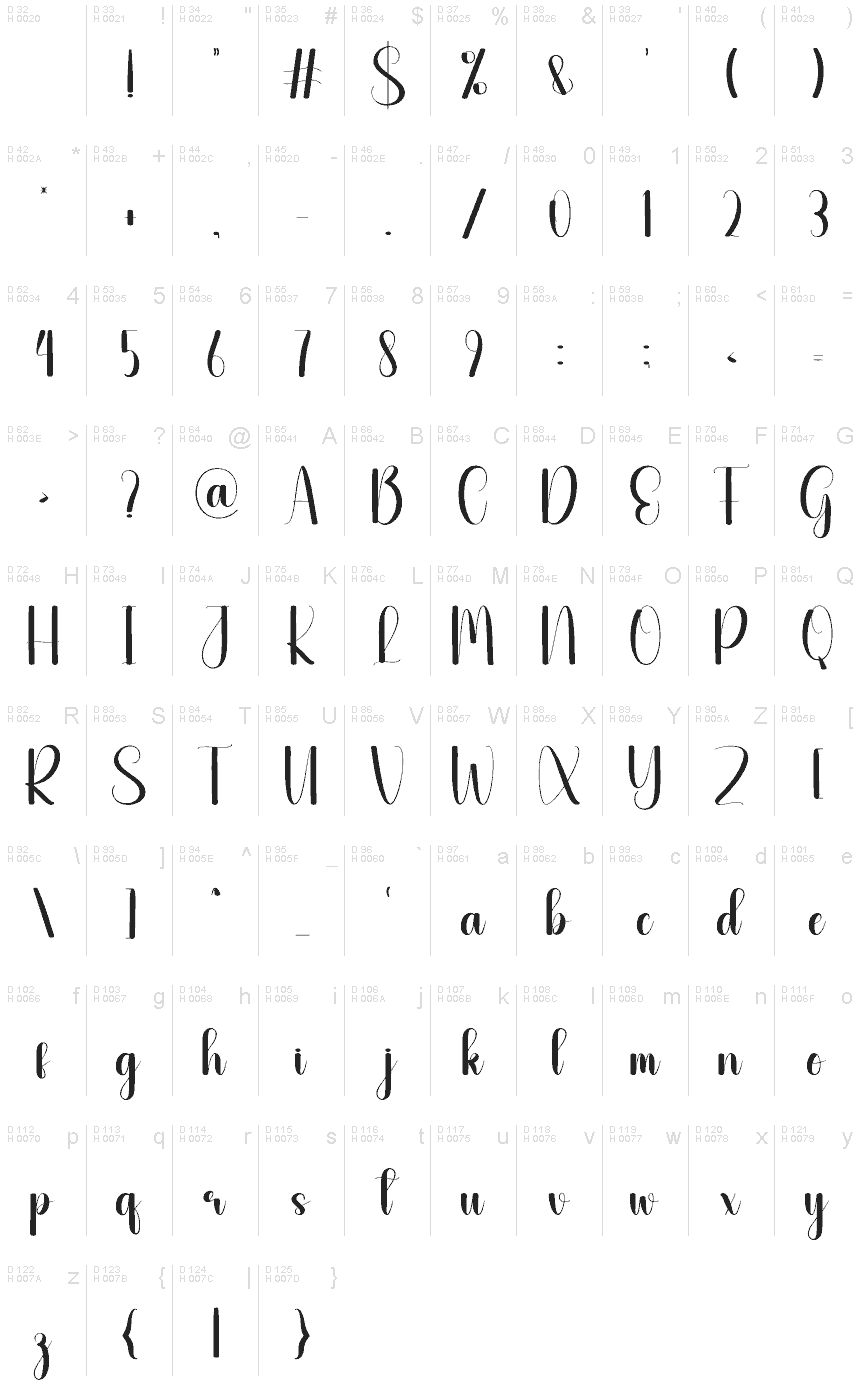
Neatness
Neatness font by Andi Moz combines elegance and sophistication with a modern script feel. This free calligraphy font’s flowing look blends well with its decorative elements, adding even more to the atmosphere it can create.
The harmonious appearance of the typeface opens up endless possibilities where it may be used: logos, branding, social media posts, wedding designs, book covers and content. Additionally invitation cards, greeting cards, posters, product packaging, labels and typography projects that will all look unique and extra special.